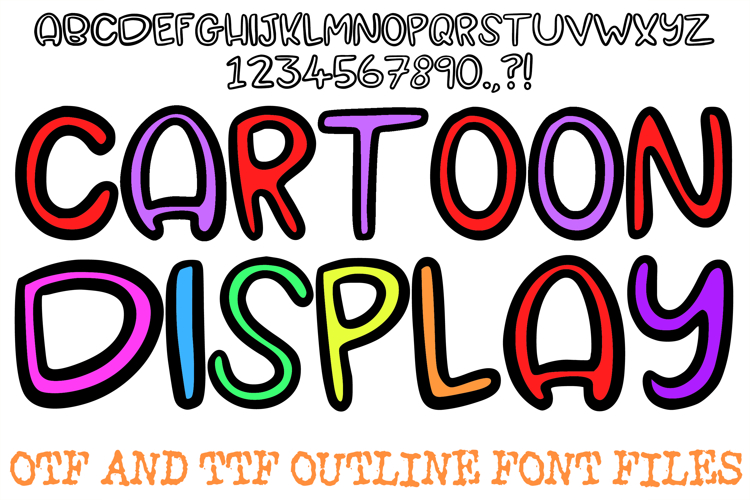
Make your headlines pop with the high-energy Cartoon Display Font! This chunky, hand-drawn alphabet features bold bubble characters with a unique "double-line" design—each letter and number includes an inner tracing that adds instant depth and a playful, 3D-like effect. It is the perfect choice for vibrant sticker packs, children’s book titles, comic-style branding, and any project that needs a friendly, urban-doodle personality.
The thick outlines and rounded edges give your text a professional, artisan-crafted look while maintaining a fun and approachable vibe. Whether you are designing for a youth apparel line, creating social media graphics, or working on personalized birthday party decor, the Cartoon Display Font delivers a bold, modern aesthetic that is easy to read and impossible to ignore.
Dynamic Inner-Line Detail: Each character features an internal border that creates a "bubble-within-a-bubble" look for extra visual interest.
Bold Puffy Silhouette: The heavy, rounded letterforms ensure your text stands out against any background.
Hand-Drawn Authenticity: The organic, sketchbook-style line work offers a custom feel that adds a human touch to your digital designs..